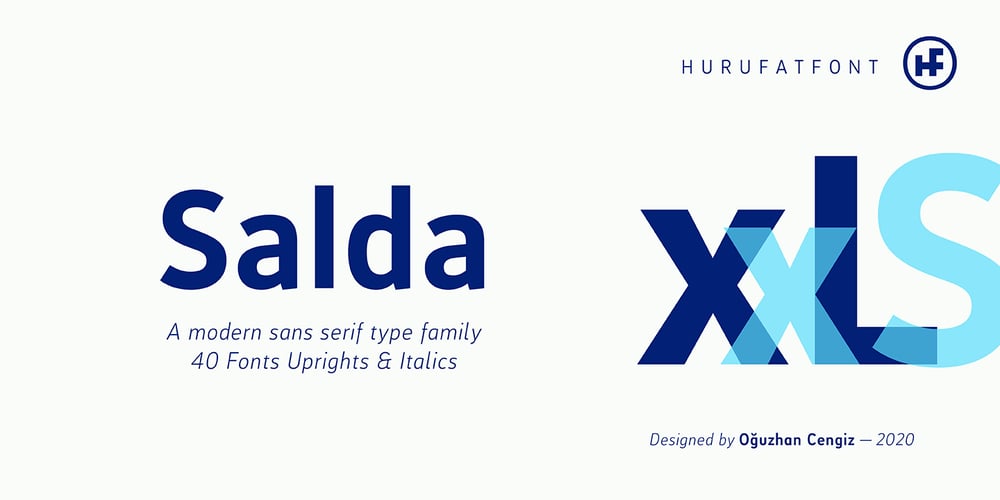
Salda Font Family was designed by Oğuzhan Cengiz and published by Hurufatfont. Salda contains 38 styles and family package options. Salda; It is a modern sans serif family that blends old and new generation sans serif fonts in the same body. It has a wide usage area with its light narrow structure, sharp and clean lines, humanist touches. It provides clean and smooth visuals in vertical screens, mobile applications and block texts.With two different x heights (xL-xS), the body offers richness in text and headings. It consists of a total of 40 styles. Ideal for all kinds of editorial design, packaging, corporate identity, brand, application, web and desktop.